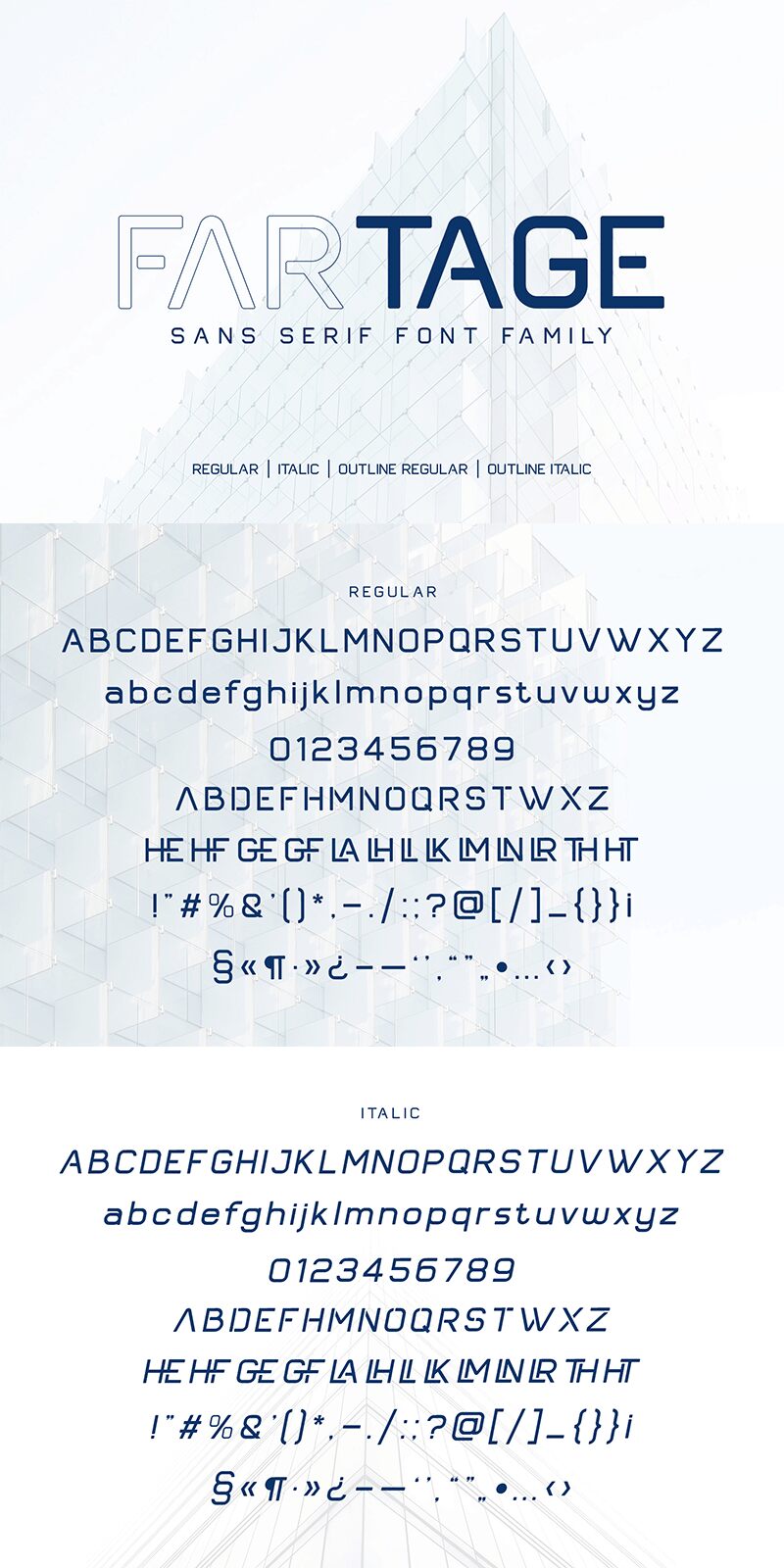
Fartage
Fartage font by Slide Shoot Type is rounded with an expanded width. The free sans serif font showcases geometric style with slightly inconsistent letter size. It is also a modern aesthetic and brings a bold expression to whatever medium it’s used on.
The typeface supports digital use cases such as mobile apps, UI/UX design, Google Ads, website banners, and social media posts.